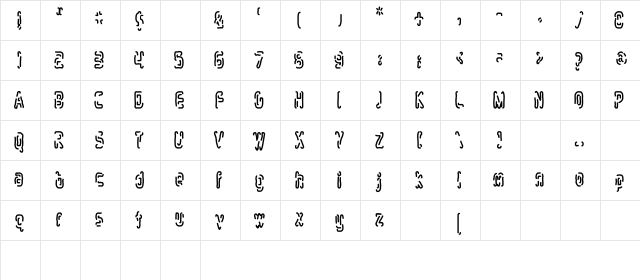
Complete Mlurmlry Medium glyph index. Displaying only characters natively supported by Mlurmlry Medium font.
Mlurmlry is a composed and adaptable typeface that performs quietly and consistently across a wide range of design contexts.